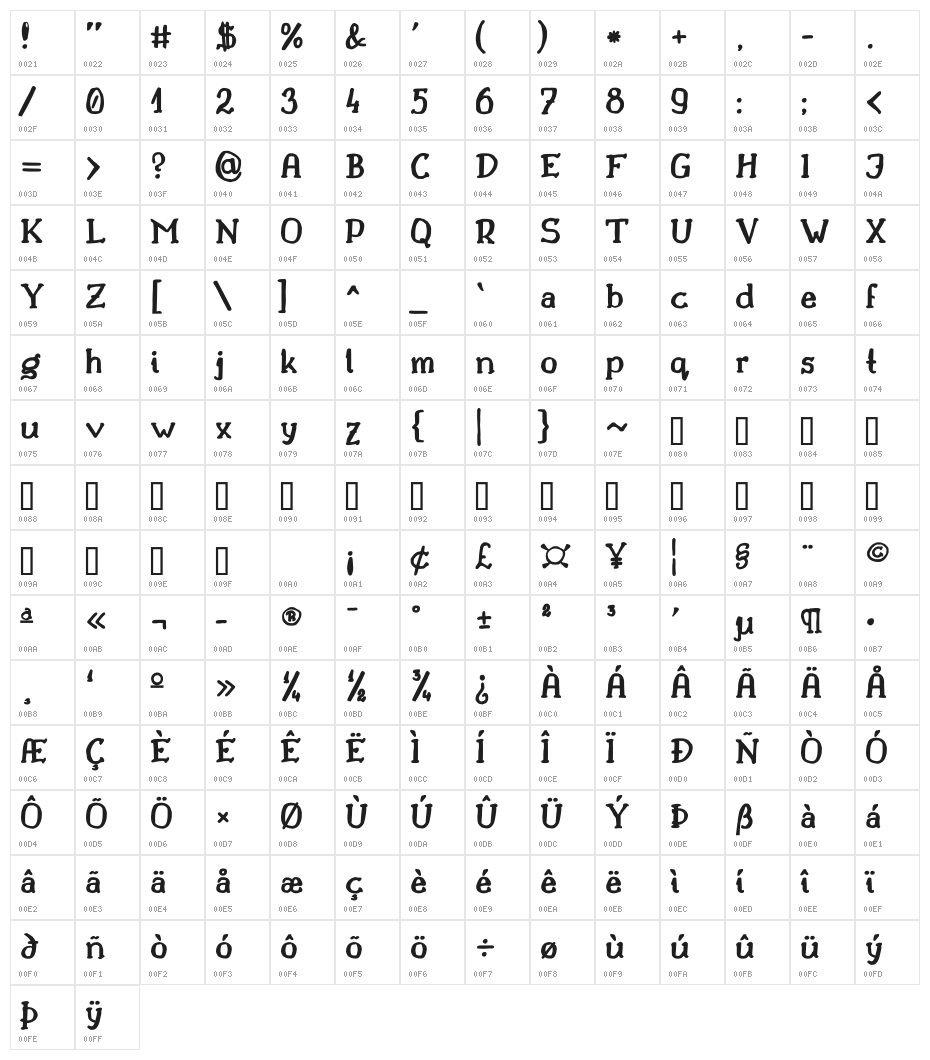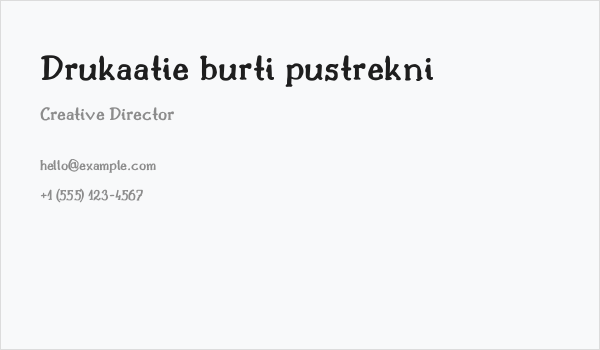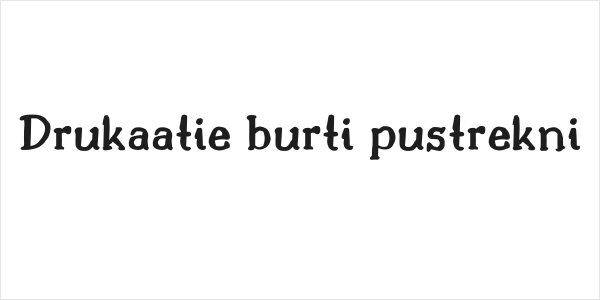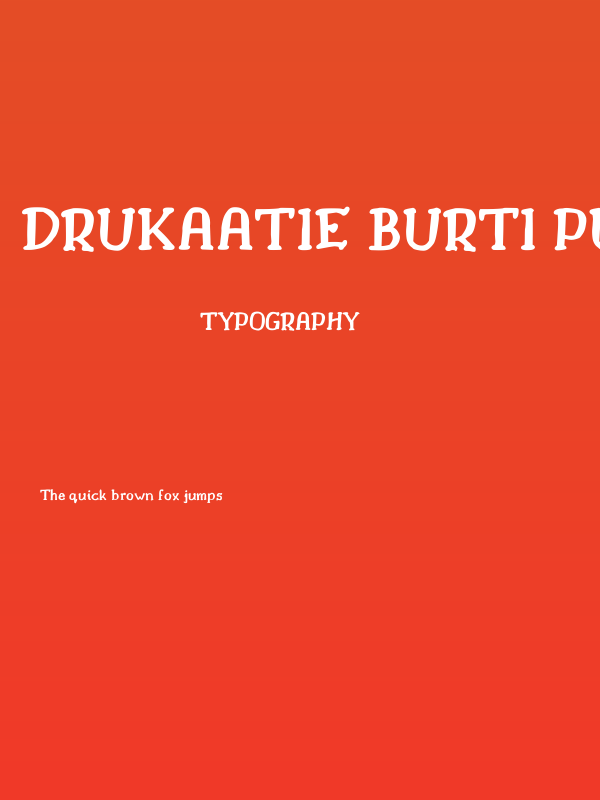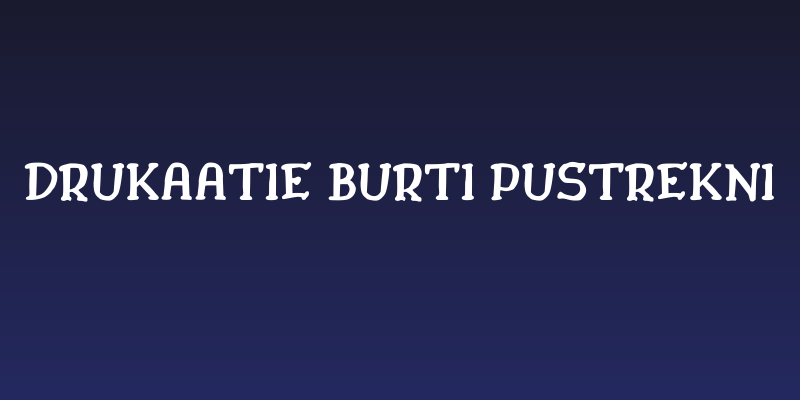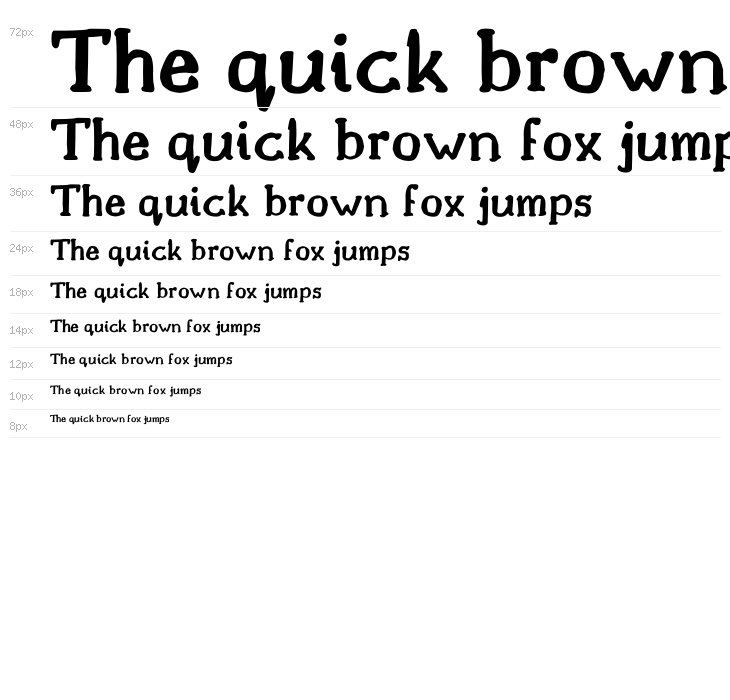
Drukaatie burti pustrekni Font
Drukaatie burti pustrekni Description
This font features a playful and whimsical design with a handwritten style. The characters have a bold and slightly irregular appearance, giving them a unique and artistic flair. The strokes are thick and rounded, contributing to a friendly and approachable look. The uppercase and lowercase letters maintain a consistent style, with the lowercase letters exhibiting a slightly more casual feel. The numbers and special characters are designed to match the overall aesthetic, ensuring cohesion across all elements. This font is ideal for projects that require a touch of creativity and personality.
| Proposed Projects | Great for children's books, creative posters, playful branding, and artistic invitations. |